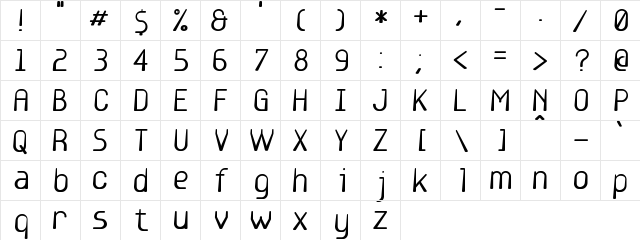
Base6 Regular Font Preview
Base6 Regular
Base6 Regular Font Details
Design Context for Base6 Typeface
Base6 offers clean, dependable letterforms without strong stylistic allegiance, making it a practical choice for designers who need flexibility.